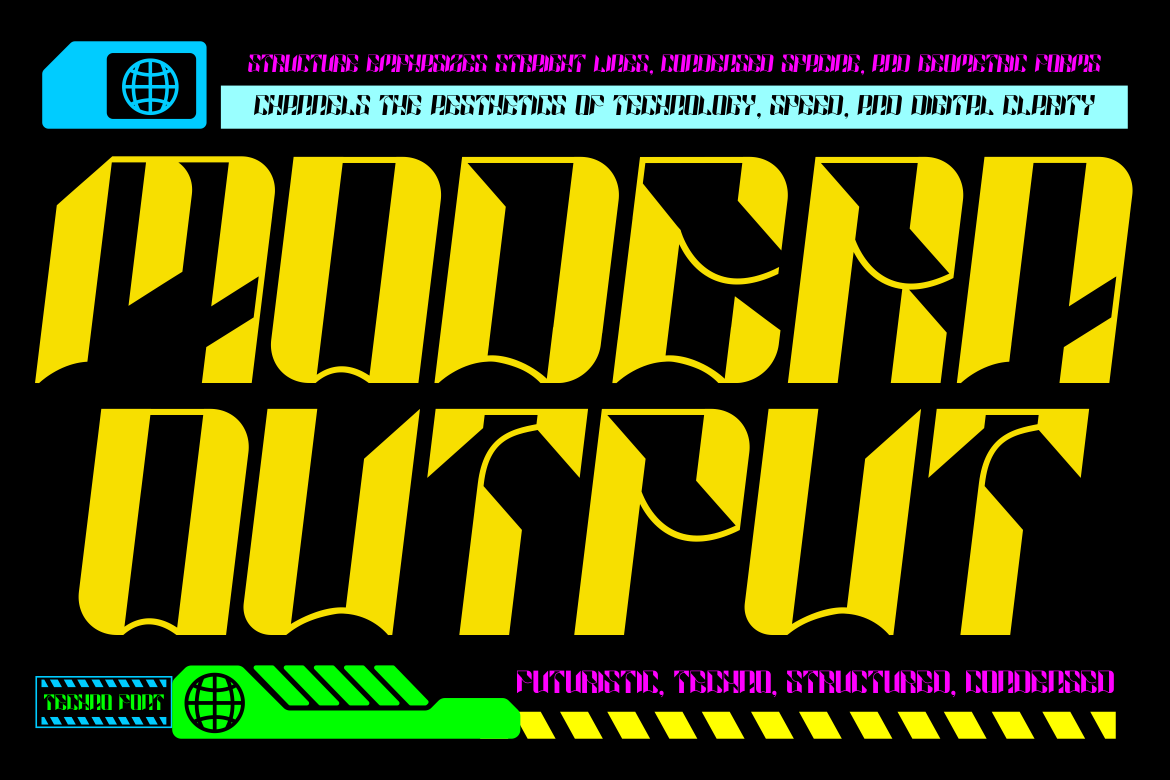
5 Best Sci-Fi Fonts for Futuristic and High-Tech Design Projects
Science fiction has always pushed creative boundaries, inspiring visions of advanced technology, interstellar exploration, and imaginative future worlds. In design, sci-fi typography plays a major role in creating that futuristic atmosphere. Whether you’re designing branding for a tech startup, building UI for a game, crafting posters, or working on digital artwork, choosing the right sci-fi font can transform your project.
This article explores the five best sci-fi fonts for futuristic projects, especially curated from Putracetol.com. These fonts bring together elements of technology, minimalism, geometry, and imagination, perfect for designers seeking a modern, visionary feel.
Why Sci-Fi Fonts Are So Effective
Sci-fi fonts go beyond decorative styling. They’re designed to communicate mood, innovation, and storytelling through shape and structure.
Create a Futuristic Atmosphere
Angular edges, monospaced forms, and digital-inspired cuts instantly set a futuristic tone. These fonts help audiences sense that a project is modern, advanced, and forward-thinking.
Strengthen Visual Identity
A unique sci-fi font builds a recognizable aesthetic for brands or creative works. Whether it’s a tech company logo or a game title, the right typography helps the project stand out.
Flexible Applications
Sci-fi fonts are incredibly versatile. They work well for:
• Branding and logos
• Posters and event promotions
• Video game UI
• Website graphics
• App interfaces
• Product packaging
• Film titles or opening sequences
Enhance Storytelling
Good typography deepens immersion. In science fiction themes cyberpunk, space, robotics, AI fonts help set the storytelling tone before the audience even reads the content.
🚀 5 Best Sci-Fi Fonts from Putracetol.com
Putracetol.com offers a curated selection of futuristic fonts crafted to bring sci-fi themes to life. Here are five standout choices that blend readability, creativity, and modern design.
1. Tronix Futuristic
Tronix Futuristic features bold shapes, sharp angles, and unique cut-out styling. It’s a strong choice for tech brands and startups wanting to present themselves as modern and innovative.
Best For:
• AI and robotics companies
• High-tech product branding
• App icons and logo design
• Futuristic posters or digital ads
Tronix gives off a sleek, digital vibe that resonates with forward-thinking technology.
2. Neurobyte
Neurobyte is elegant and modern, carrying a more refined sci-fi feel. Its smooth lines and polished form make it ideal for projects that require sophistication without losing futuristic character.
Best For:
• Premium tech branding
• Corporate digital services
• Minimalist websites
• Product packaging for electronics
Neurobyte works well when paired with simple layouts and monochrome palettes.
3. Dynatron
Dynatron leans heavily into geometric shapes and digital-era inspiration. It feels like a blend of classic sci-fi UI and modern synthetic design.
Best For:
• Game UI and HUD elements
• Sci-fi applications or dashboards
• Tech posters and neon-themed projects
• Space-themed content or animations
Dynatron also pairs well with more contemporary fonts like Focused Block or Glamiora (both from Putracetol.com) to create depth and contrast in multi-font designs.
4. Formaxis
Formaxis is sleek and minimalist. It doesn’t rely on heavy decoration its clean geometry gives it a futuristic elegance that suits modern tech environments.
Best For:
• Electronic and digital product branding
• Website headers
• Presentation slides for tech startups
• Cyber-inspired editorial layouts
Formaxis works especially well when you want subtle sci-fi energy without going too bold.
5. Cosmic Network
Cosmic Network is a monospaced futuristic font with a strong computer-style aesthetic. It feels like it belongs in terminal interfaces, cyberpunk stories, or retro-futuristic worlds.
Best For:
• Computer-themed designs
• Cyberpunk posters
• Coding-inspired branding
• Data visualization or AI graphics
Its monospaced nature makes it perfect for tech-forward designs where structure and clarity matter.
How to Choose the Best Sci-Fi Font for Your Project
When selecting a futuristic typeface, think beyond aesthetics. Consider how the font will support the overall message and design style.
Understand Your Theme
Different sci-fi styles give off different moods:
• Cyberpunk: glitchy, neon, monospaced
• Space/astronomy: wide spacing, smooth lines
• AI/technology: sharp geometry, clean cuts
• Futuristic minimalism: sleek, subtle forms
Match the font with the story you want to tell.
Prioritize Readability
Even creative fonts need clarity. Choose sci-fi fonts with balanced proportion and clean spacing, especially for logos or headings.
Pair Fonts Thoughtfully
Sci-fi fonts usually shine as display typefaces. Pair them with simple, clean secondary fonts such as:
• Styvia
• Boxer Punch
• Focused Block
These pairings create contrast and make the main sci-fi typography stand out.
Consider Long-Term Branding
If you’re selecting a font for branding or a large project, choose something versatile enough to work across both digital and print material.
Creative Uses for Sci-Fi Fonts
Sci-fi fonts open the door to countless design possibilities. Here are a few ways to use them effectively:
Technology Branding
Tech companies often want to look cutting-edge, and sci-fi fonts help convey innovation instantly.
Posters & Event Promotions
For gaming conventions, film festivals, electronic music events, or exhibitions, sci-fi typography makes posters look bold and immersive.
Website UI
Headers, navigation labels, and hero sections gain personality with futuristic fonts.
Game Design
Titles, menus, HUD elements, and interface screens all benefit from thoughtful sci-fi typography.
Packaging Design
Electronics, gadgets, and digital products look more premium when paired with clean, futuristic fonts.
Conclusion
Sci-fi fonts play a crucial role in shaping modern, imaginative, and futuristic design styles. Whether you’re working on branding, UI design, posters, or digital artwork, choosing the right font helps create immersive experiences that feel bold, advanced, and visually striking.
The curated selection at Putracetol.com including Tronix Futuristic, Neurobyte, Dynatron, Formaxis, and Cosmic Network gives designers access to high-quality, stylish fonts that elevate any creative project. If you want your designs to stand out with a futuristic edge, these sci-fi fonts are the perfect place to start.